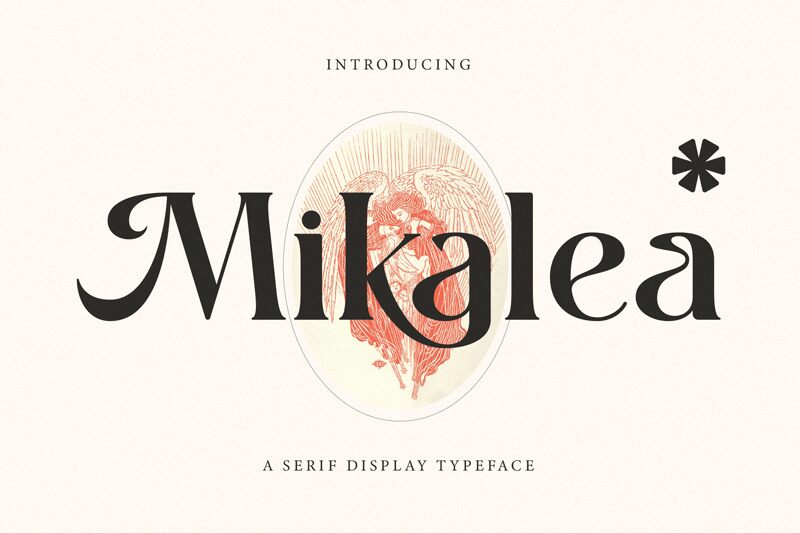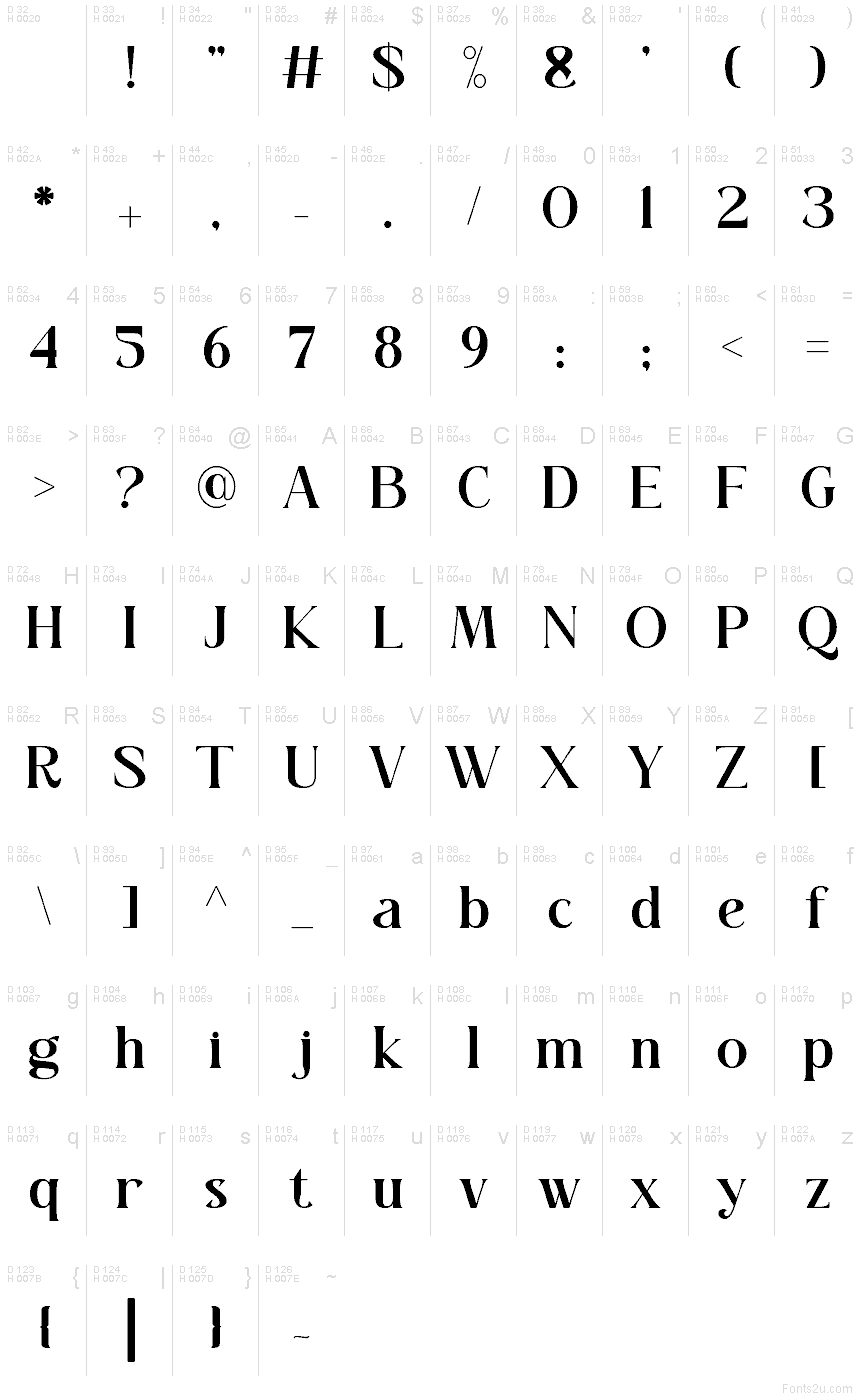
Mikalea
Mikalea font by Muflieart is a free serif font. Its signature look comes from blade-sharp serifs and silky thick‑thin rhythm that feels cut with a chisel, then polished. The letters stand tall with poised curves and crisp edges, giving headlines a refined snap while keeping enough warmth to avoid stiffness.
This free font shines on fashion branding, boutique logos, beauty packaging, editorial mastheads, invitations, posters, and social banners. Using Mikalea, you get a luxe voice that reads with poise at larger sizes—add a touch of tracking and let it breathe. For balance, pair Mikalea with a clean grotesk sans to handle body copy and captions.